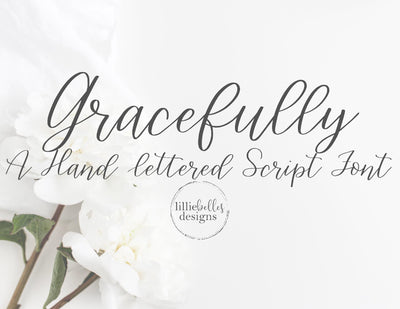
Gracefully Hand lettered font
Gracefully - A hand lettered script font.
Gracefully is perfect for invitations, wedding decor, signs, and wall decor. This is a script handwritten font with uppercase, lowercase, ligatures and alternates. Check out the listing photos for examples & the character list.
- Uppercase and lowercase script characters
- Numbers, punctuation, and symbols
- Standard ligatures and special beginning characters